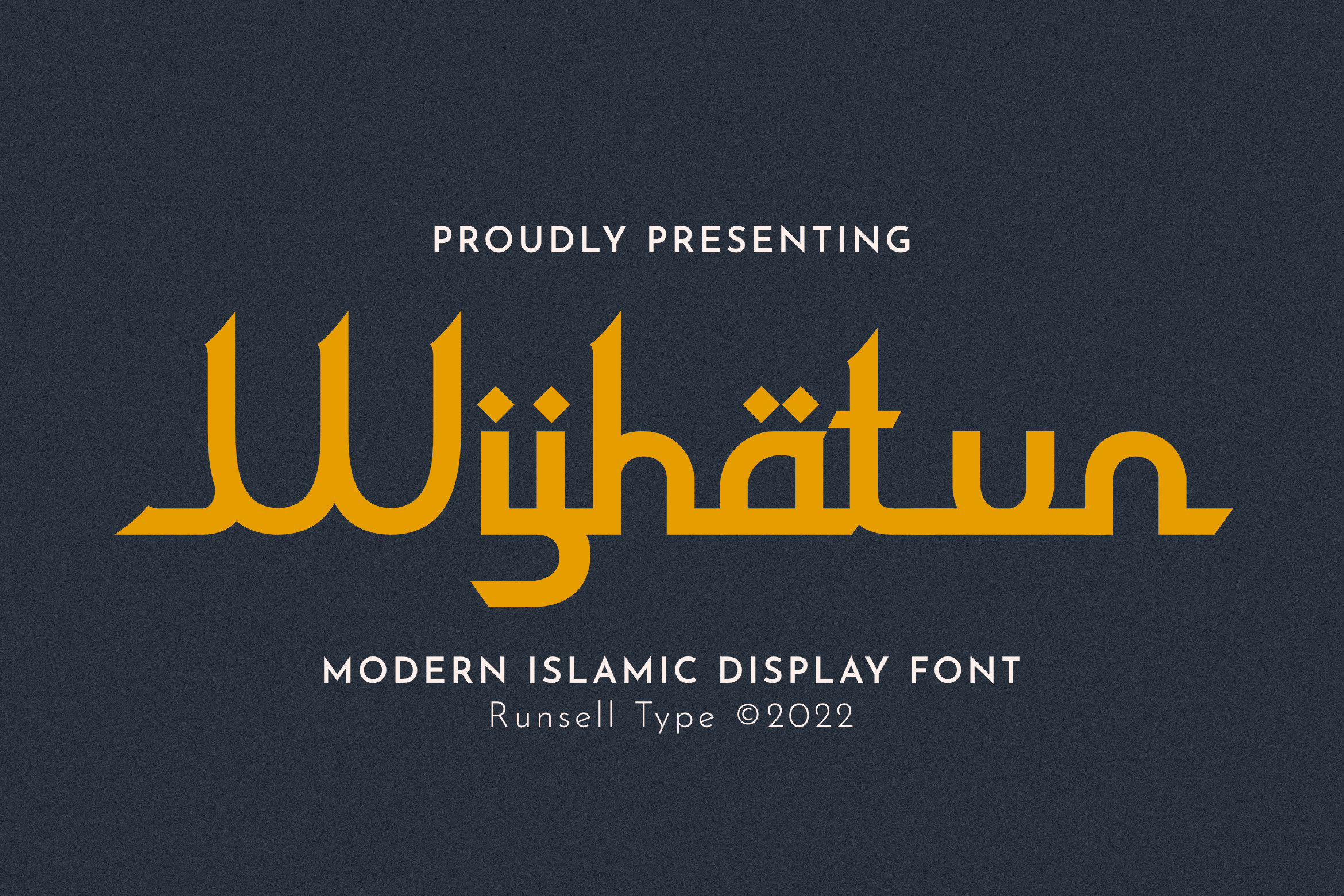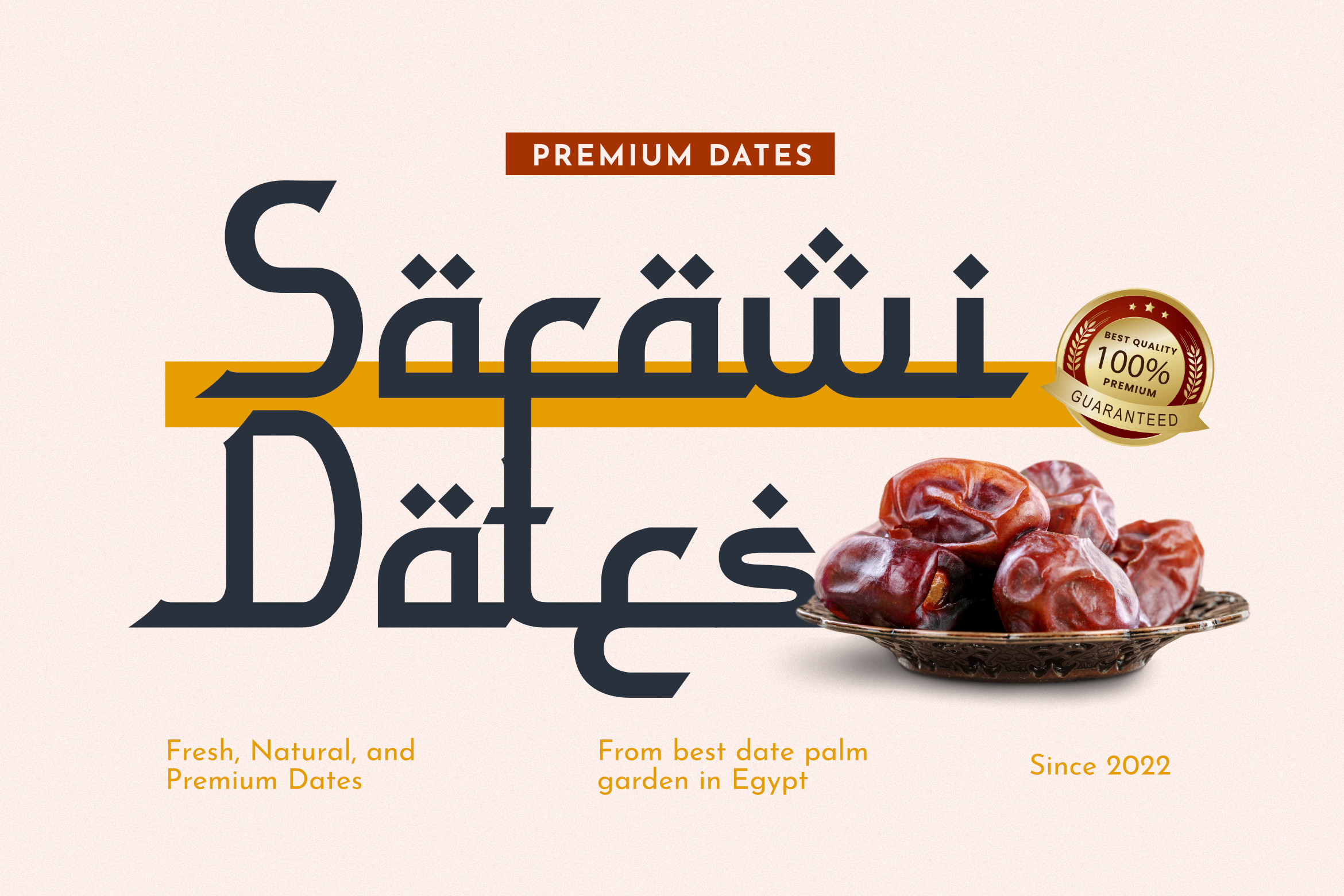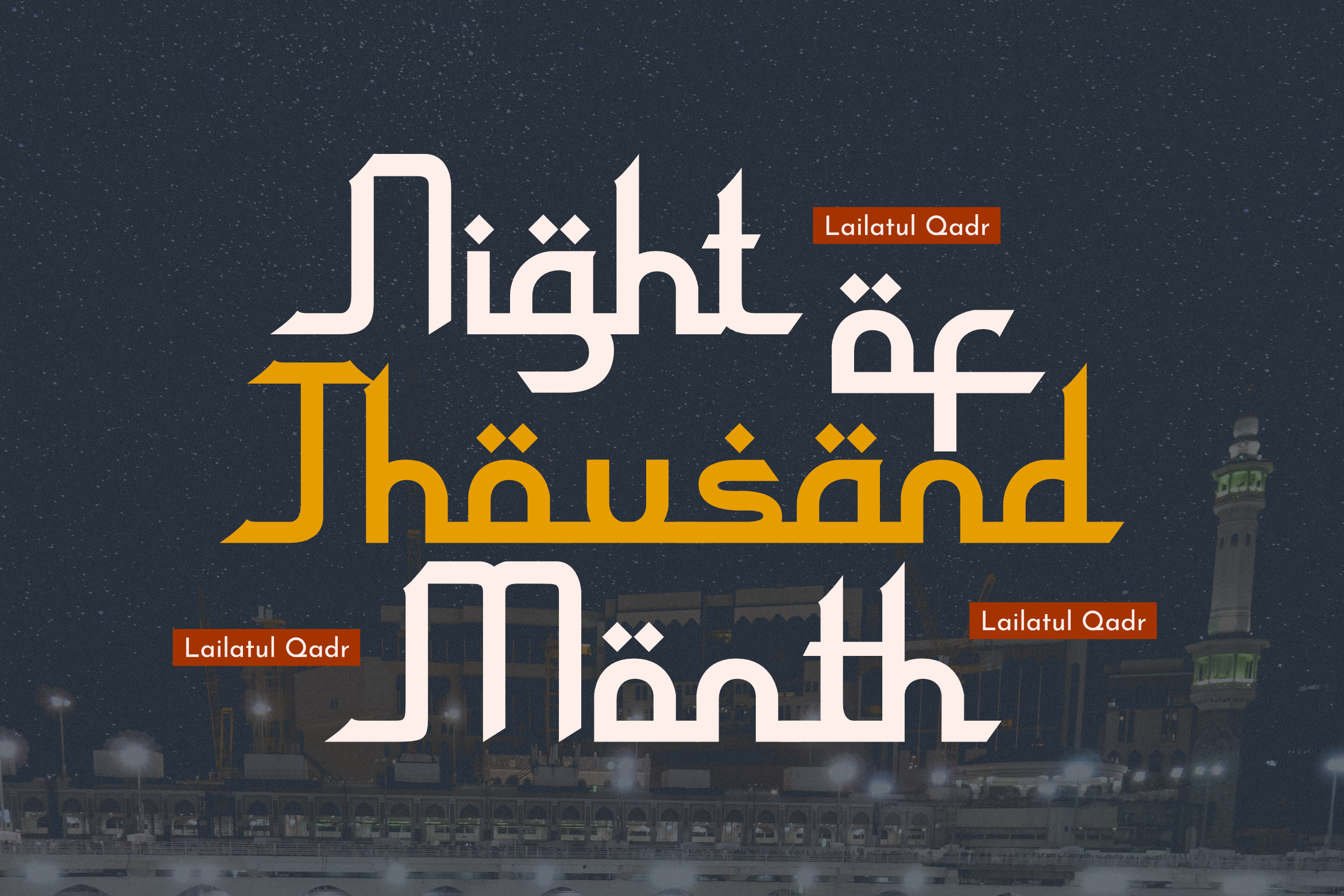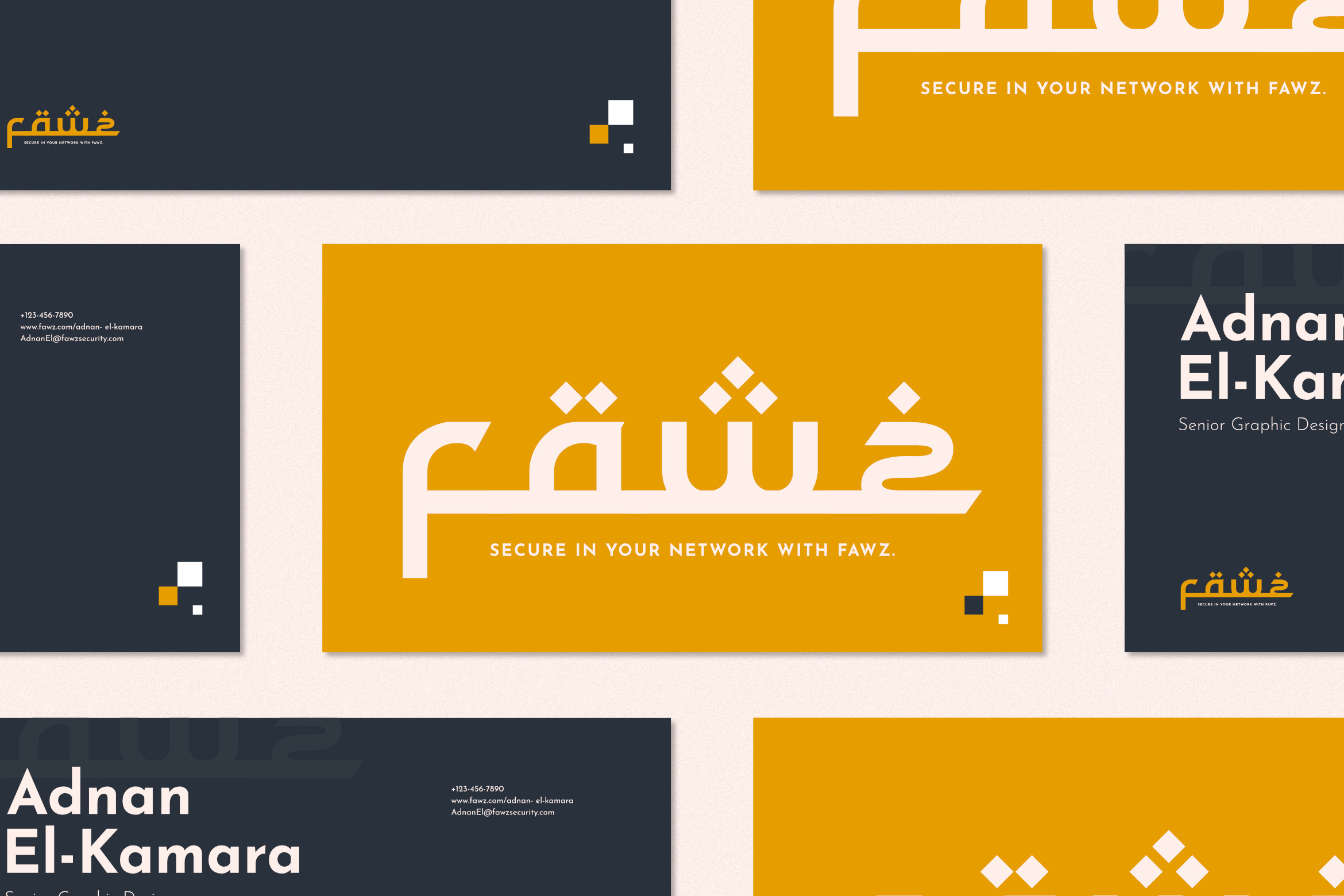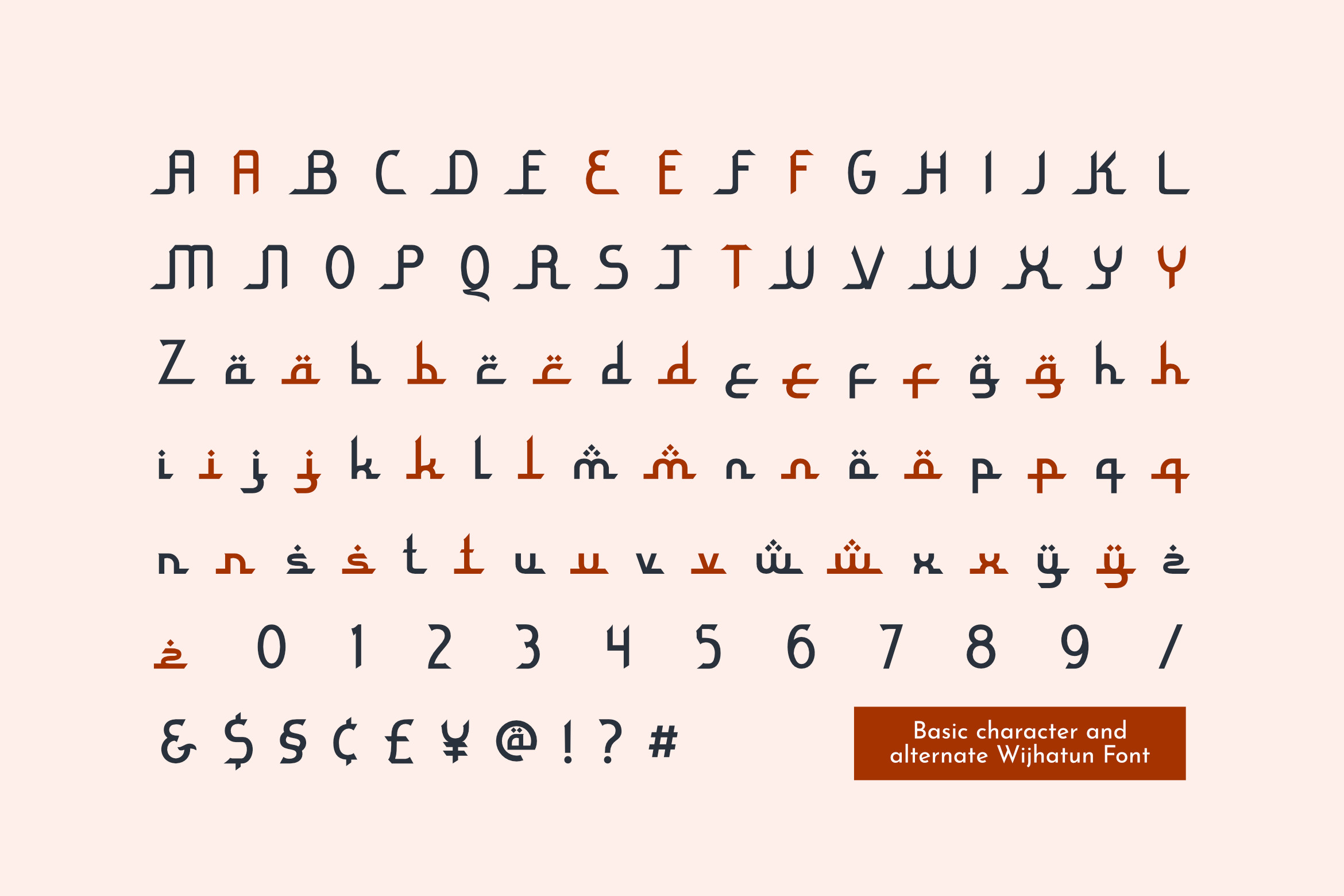
Wijhatun
Wijhatun is a modern Islamic display font that brings together the sharp precision of Latin typography with visual cues inspired by Arabic calligraphy. It features strong vertical strokes, geometric constructions, and diacritic-like embellishments that emulate the rhythm of traditional Arabic script. This font is perfect for creating a cultural bridge in contemporary design, whether for editorial use, logo marks, or product branding with an Islamic visual identity.
With its extensive alternates and stylized ligatures, Wijhatun offers flexibility and expressive potential for designers aiming to infuse their work with modern Middle Eastern aesthetics. It works well across packaging, fashion branding, Ramadan campaigns, and Islamic corporate identities, lending both tradition and futurism to any layout.